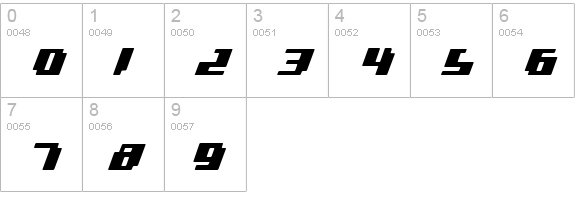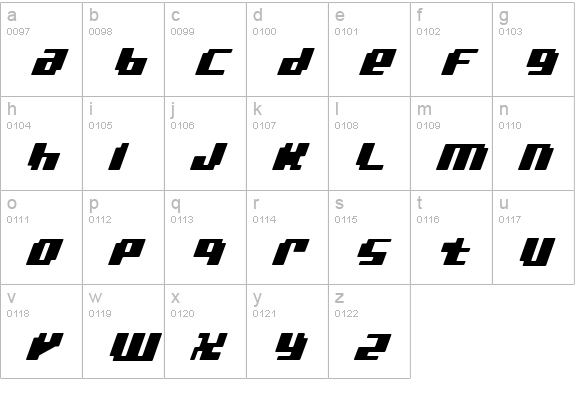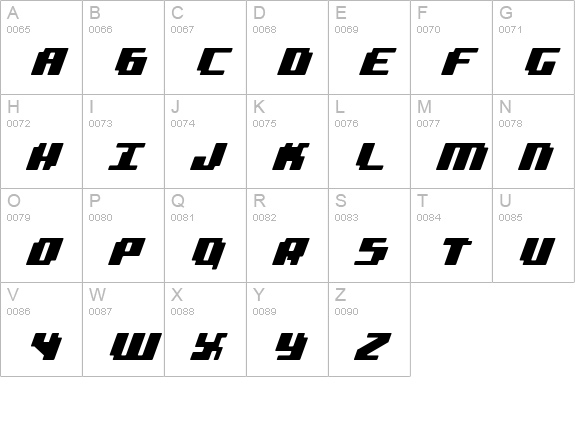
bad robot italic is a distinctive, italic variant in the bad typeface family \xE2\x80\x94 well suited to design and typography projects.
Introducing Bad Robot, a dynamic and futuristic font that exudes a sense of mechanical precision and technological prowess. Its sharp angles and sleek design make it the perfect choice for projects that require a modern and edgy touch. The *Bad Robot* font is freely available to download at FontsMarket.com, allowing you to add a touch of sci-fi sophistication to your designs with ease. Whether you're working on a logo, poster, or digital artwork, this font is sure to make a bold statement and captivate your audience. Embrace the power of Bad Robot and take your designs to the next level with its striking and distinctive appearance.